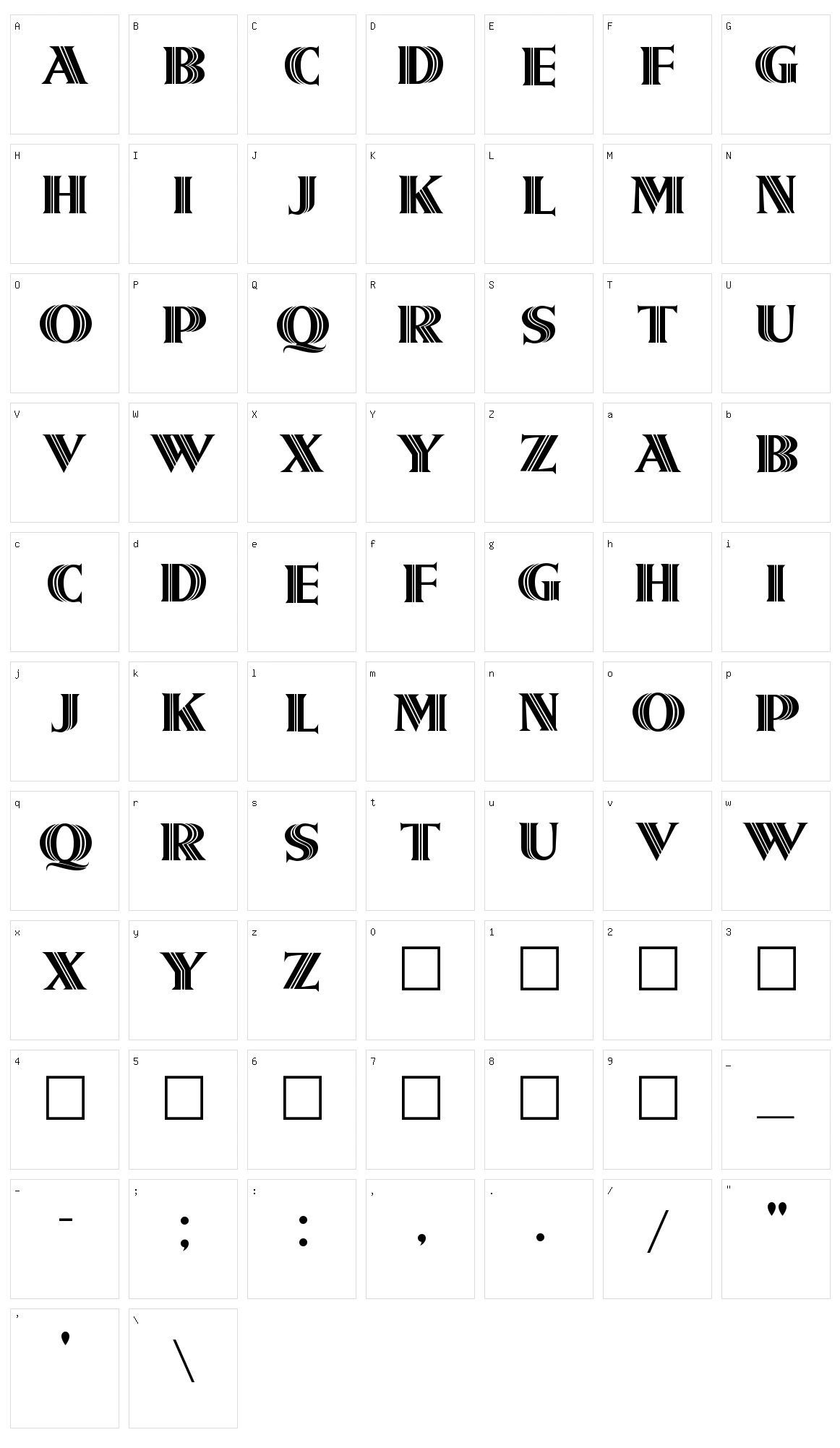
MetrolinerCaps is an all caps revival of the Art Deco typeface
"Metropolis Shaded." My original source for creating this face
contained only uppercase characters. This font does not include
numerals, international characters, and some punctuation symbols.
Version 1.3 includes over 500 hand-checked kerning pairs and
additional punctuation (hyphens, period, comma, colon and
semicolon). The added punctuation symbols were added by request
but is not part of the original Art Deco character set.
** MetrolinerCaps, like most Display Typefaces should be used at
24 points or higher.